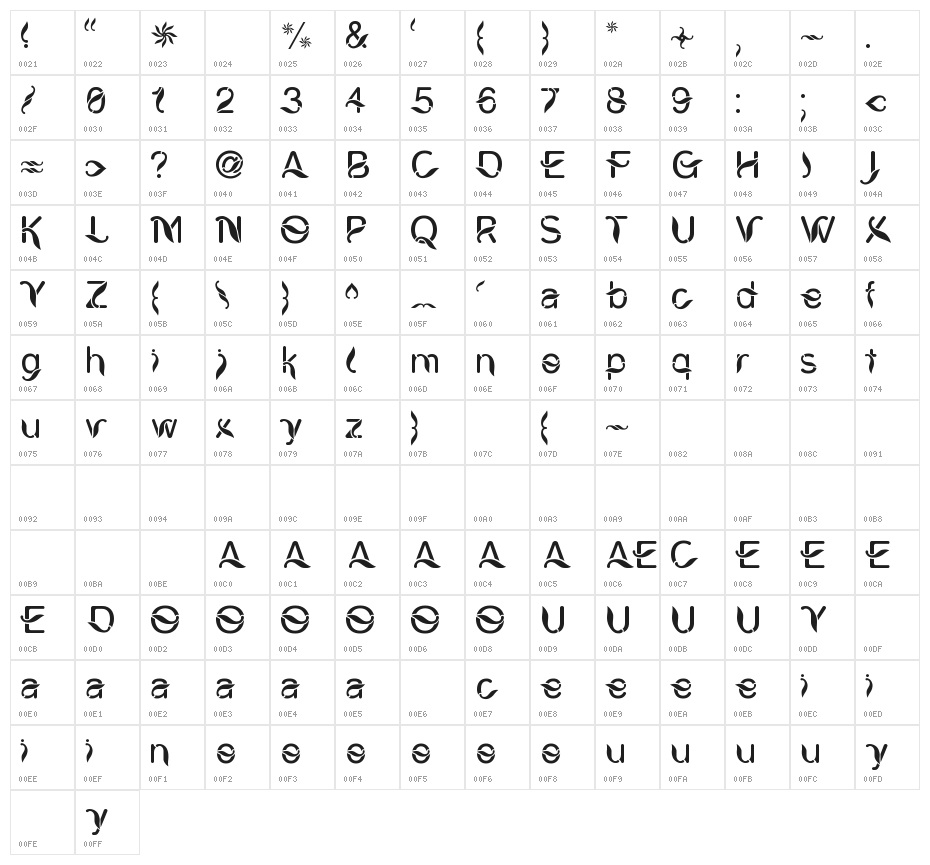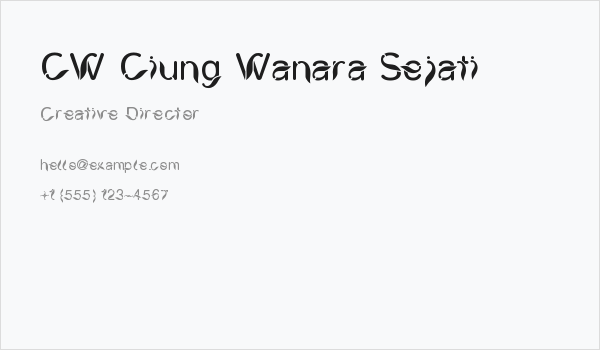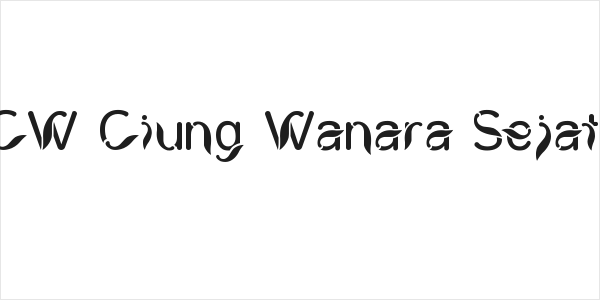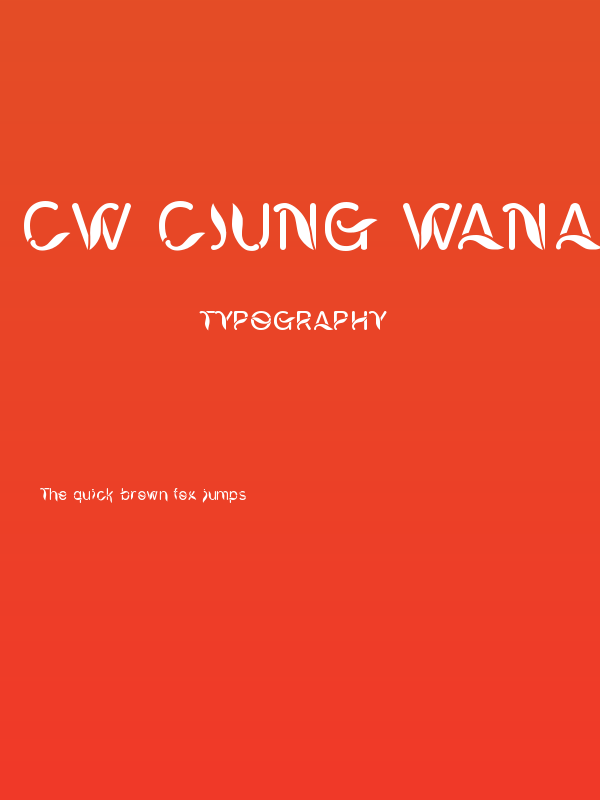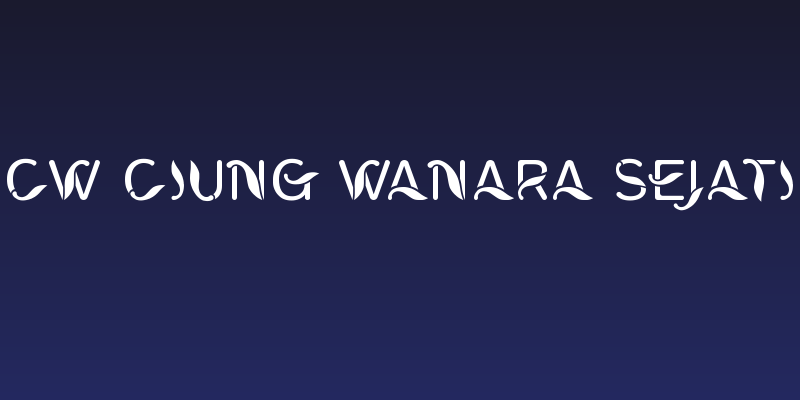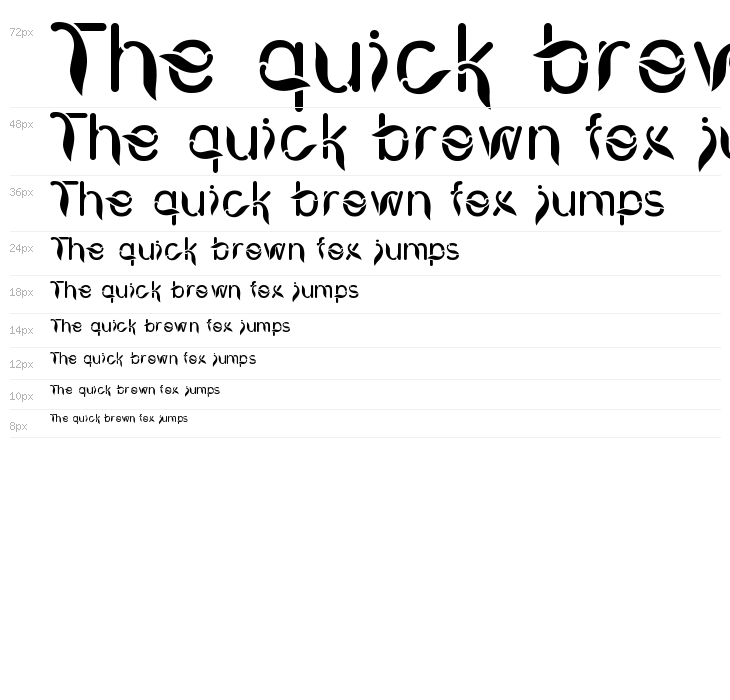
CW Ciung Wanara Sejati Font
CW Ciung Wanara Sejati Description
This font features a unique and artistic design with intertwining elements that create a sense of movement and flow. Each character is crafted with a blend of thick and thin strokes, giving it a dynamic and modern appearance. The uppercase and lowercase letters maintain a consistent style, with some characters featuring distinctive loops and curves that add to the font's decorative nature. The numerals and special characters are equally stylized, ensuring a cohesive look across all elements. This font is ideal for projects that require a bold and creative touch, making it perfect for branding, posters, and artistic designs.
| Use Case | Headlines, Logos, Artistic Designs |
| Proposed Projects | Ideal for branding, posters, artistic designs, and creative projects. |